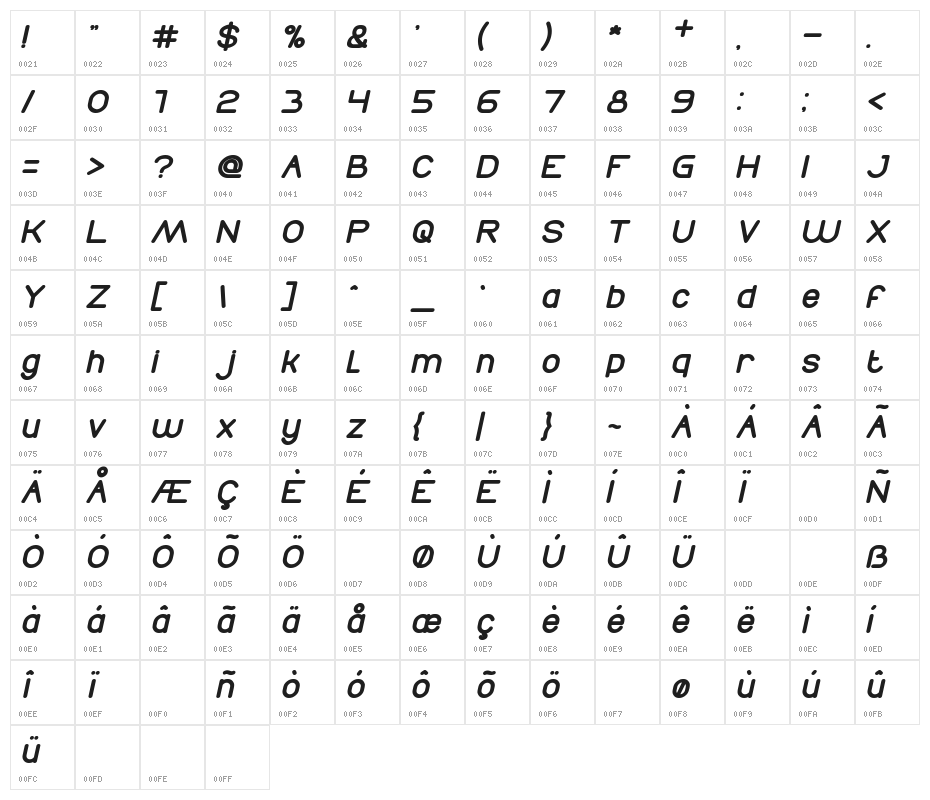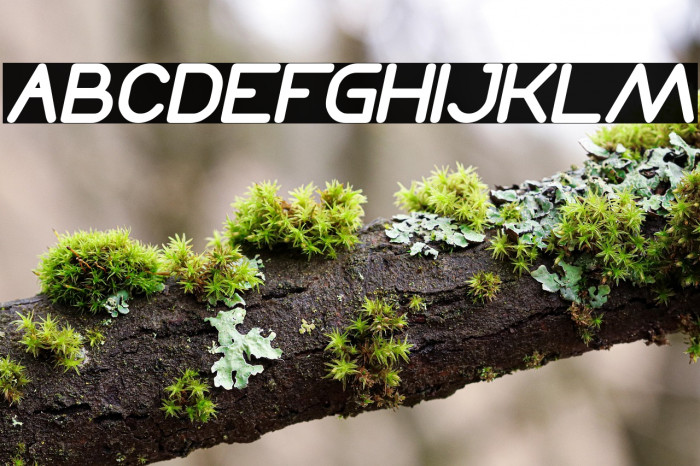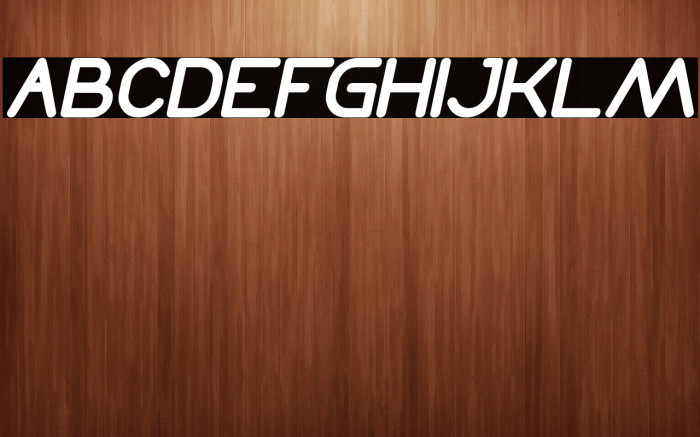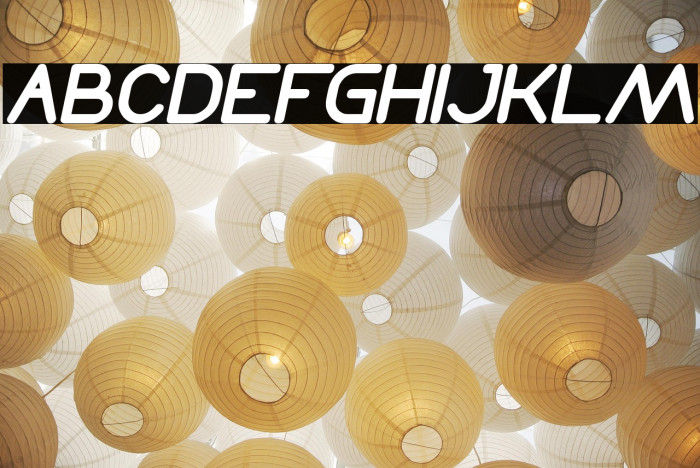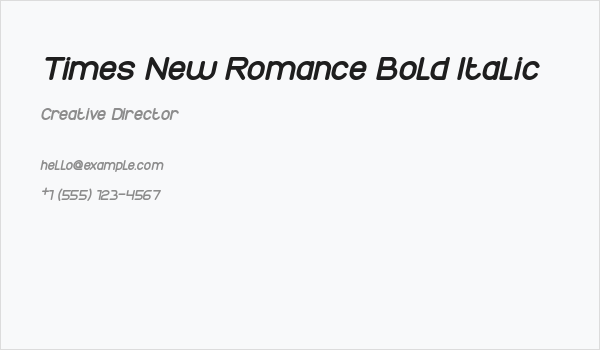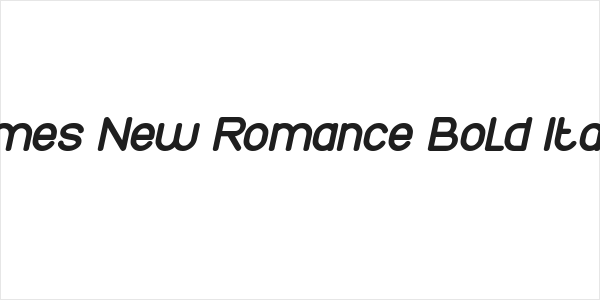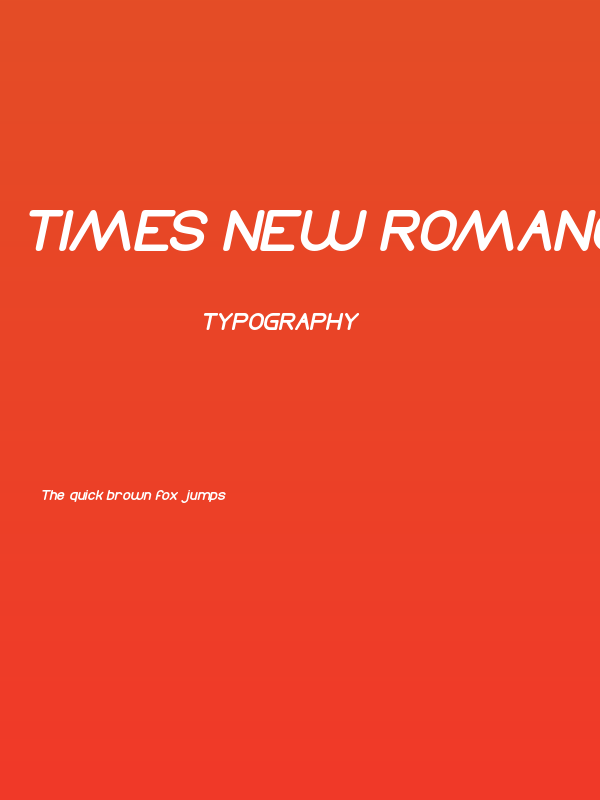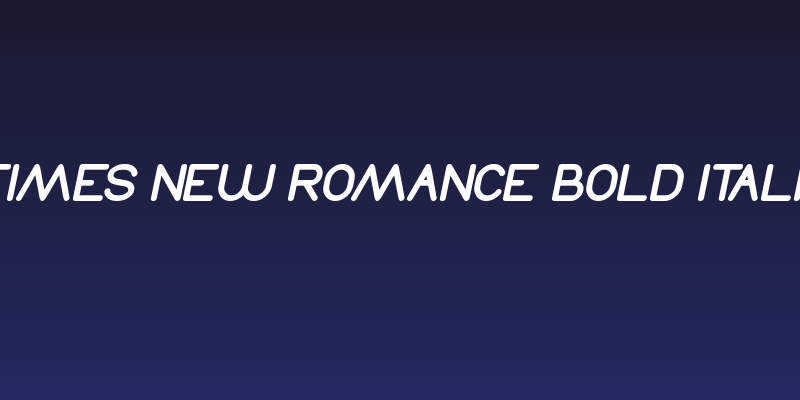
Times New Romance Bold Italic Font
Times New Romance Bold Italic Description
This font features a bold and italic style, characterized by smooth, rounded edges and a consistent stroke width. The letters have a modern and sleek appearance, with a slight slant that adds a sense of motion and dynamism. The uppercase and lowercase letters maintain a uniform look, while the numerals are clear and easily distinguishable. Special characters are well-integrated, maintaining the overall aesthetic. The font's design is both functional and visually appealing, making it suitable for a variety of applications.
| Use Case | Headlines, Logos, Digital Media |
| Proposed Projects | Ideal for branding, advertising, and digital media projects that require a modern and dynamic look. |